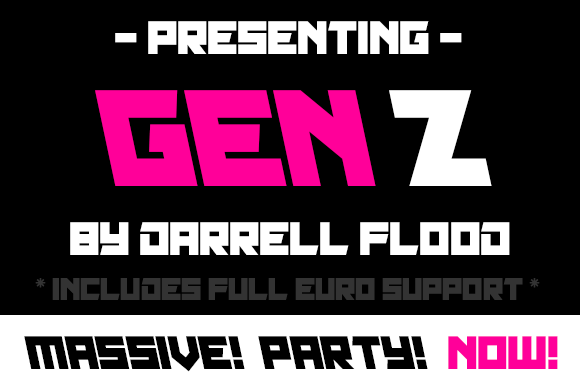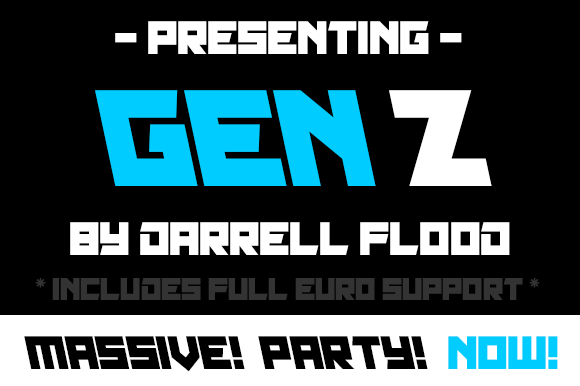
Unlocking the Future of Typography
Have you ever been in the middle of a design project, pouring over fonts, and then suddenly, a spark of inspiration hits? For many designers, this is the moment when creativity takes over and something truly special is born. For me, this moment happened when I stumbled upon the Gen Z Font – a modern sci-fi font that screams futuristic vibes.
This sleek, angular font is not just a pretty face; it’s a powerful tool designed to transport your audience to a world of cutting-edge innovation. With its unique Italic version and subtle stylistic alternates, the Gen Z Font is perfect for futuristic themes, rave events, and tech presentations that demand a bold, attention-grabbing look.
As designers, we’re always on the lookout for fonts that can elevate our work and make it stand out from the crowd. The Gen Z Font is a valuable addition to any designer’s toolkit, offering a fresh perspective and a whole lot of futuristic flair.
Key Features of “Gen Z Font”
- Font Family: The font is a sans-serif typeface designed to appeal to Generation Z, with a focus on modernity and simplicity.
- Font Size and Style: Offers a range of font sizes from 8pt to 72pt, with bold, italic, and regular styles to cater to different design needs.
- Unique Characteristics: Features a distinctive x-height, with a focus on legibility and readability in digital environments.
- Language Support: Includes comprehensive language support for Latin-based languages, as well as support for Cyrillic and Greek scripts.
Gen Z Font Review
As a designer, I was excited to dive into the world of “Gen Z Font”. The font is designed to capture the essence of the Gen Z generation, with a focus on digital communication and social media. Here are my honest thoughts:
- The font is highly customizable, allowing users to adjust the weight, width, and style to suit their needs.
- The font is designed to be easily readable on digital screens, making it perfect for social media and online content.
- The font includes a range of styles, from sans-serif to script, giving users plenty of options for their designs.
- The font can feel a bit over-the-top at times, with some users finding it too playful or immature.
- The font may not be suitable for more formal or professional designs, where a more traditional font is preferred.
- The font can be difficult to pair with other fonts, as its bold and playful style can overpower other typefaces.
Overall, I think “Gen Z Font” is a fun and creative option for designers who want to add some personality to their designs. While it may not be suitable for every project, it’s a great choice for social media, online content, and other digital applications.
Getting the Most Out of Gen Z Font
To get the most out of Gen Z Font, use it in combination with bold and italic text to create visual hierarchy and emphasis. Experiment with different font sizes and colors to add visual interest to your designs.
Gen Z Font is commonly used in digital designs, such as social media graphics, blog posts, and marketing materials. It’s also used in print designs, such as posters, flyers, and business cards.
Noto Sans
Noto Sans is a highly legible font designed for digital interfaces. It’s available in a wide range of languages and is suitable for use in websites, apps, and other digital products. Compared to Gen Z Font, Noto Sans is more formal and professional, making it a better choice for corporate and business projects.